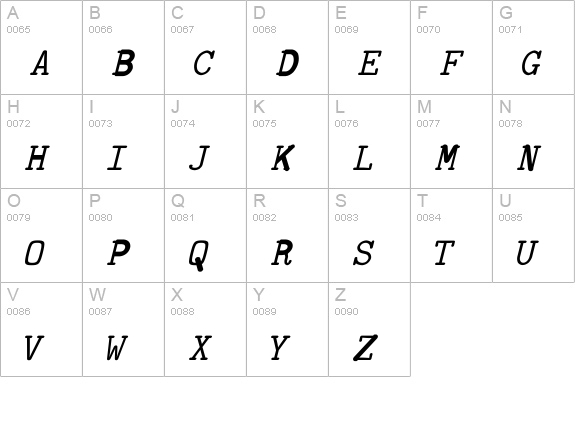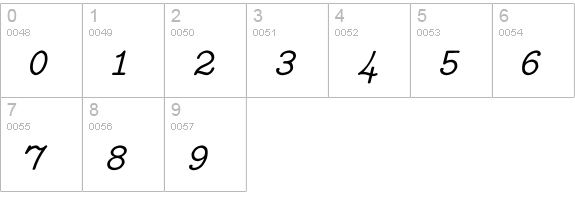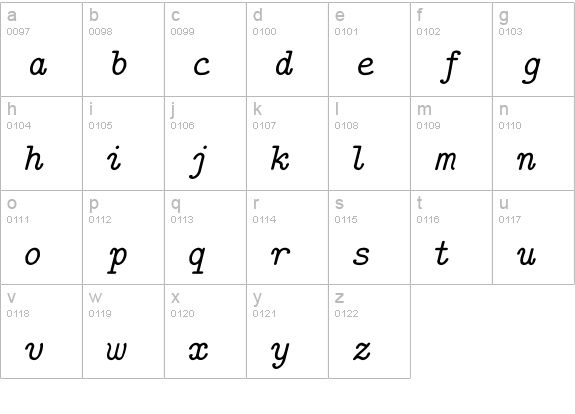
CM_Typewriter Italic Font Details
CM_Typewriter Italic is a distinctive, italic variant in the CM_Typewriter typeface family \xE2\x80\x94 well suited to design and typography projects.
CM_Typewriter Italic is a stylish and sophisticated font that combines the timeless charm of typewriter text with a modern twist. Its italicized design gives off a sleek and elegant vibe, perfect for adding a touch of professionalism to any project. The unique character of this font makes it stand out, making it a great choice for branding, logos, and more. What's even better is that CM_Typewriter Italic is available for free download at FontsMarket.com. This means you can easily access this versatile and eye-catching font without having to break the bank. Whether you're a designer looking to add a new font to your collection or a business owner in need of a fresh look for your brand, CM_Typewriter Italic is sure to impress. Download it today and elevate your projects with this stunning and free font.